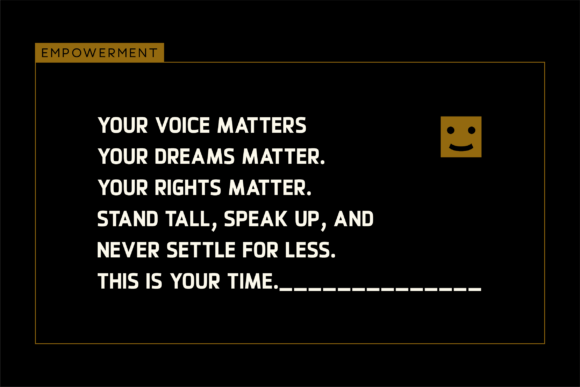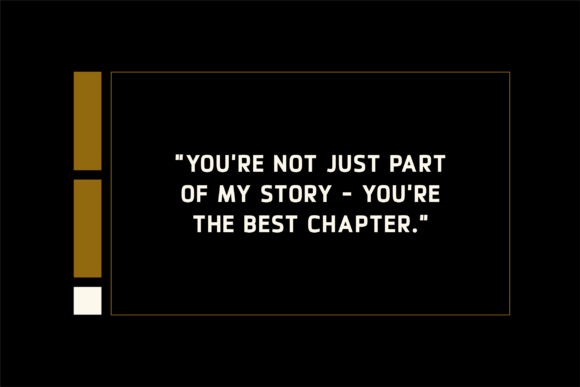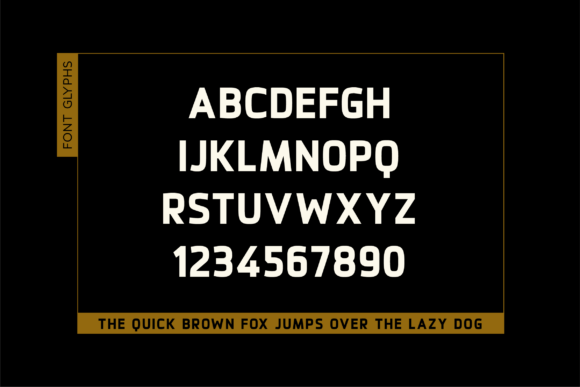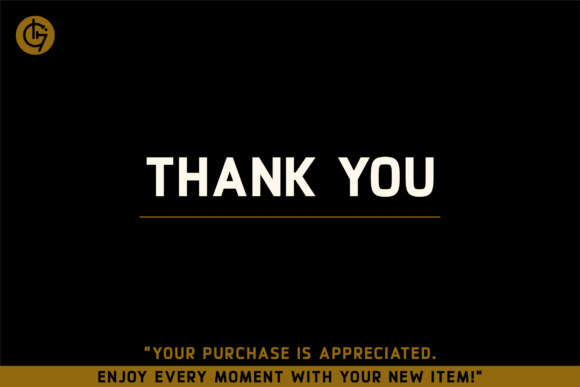
Introduction to Highstrome Font
As a designer, have you ever struggled to find the perfect font for a creative project that screams professionalism and impact? The search for that one font that elevates your design from ordinary to extraordinary can be a daunting task. But what if we told you that your search is over? Say hello to Highstrome Font, a modern sans serif typeface designed to make your designs stand out.
With its clean lines and minimalist aesthetic, Highstrome Font exudes strength and authority, perfect for projects that require a sense of professionalism and transparency. Whether you’re working on a logo, website, or print material, Highstrome Font makes a statement with its sharp, crisp edges, and is available for free download as a design resource.
Key Features of Highstrome Font
- High-resolution design, ideal for creative projects that require a high level of detail and clarity.
- Features a transparent background, allowing for easy customization and integration into different design elements.
- High-quality font, designed to provide a professional and sophisticated look for any creative project.
Honest Review: Highstrome Font
I recently came across the Highstrome Font while searching for a high-quality design resource for a creative project. I was immediately drawn to its unique and elegant style, making it perfect for modern designs.
One of the standout features of the Highstrome Font is its transparent background, allowing for seamless integration into any design. I also appreciated the fact that it’s available for free download, making it an excellent resource for designers on a budget.
- ✨ Unique and elegant style, perfect for modern designs
- ✨ Transparent background for seamless integration
- ⚠️ Limited font sizes and weights, may not be suitable for complex designs
- ⚠️ Not as versatile as other fonts, may not work well for all design styles
Overall, I was impressed with the Highstrome Font’s quality and style. While it has some limitations, it’s a great addition to any designer’s toolkit, especially for modern and elegant designs. I would definitely recommend it for creative projects that require a unique and high-quality font.
Tips for Getting the Most Out of Highstrome Font
Highstrome Font is a versatile design resource that can be used in a variety of creative projects. To get the most out of it, experiment with different font sizes and styles, and combine it with other design elements to create a high-quality design. You can also use it in combination with other free downloads to create a unique and visually appealing design.
Highstrome Font is commonly used in a variety of design projects, including logos, business cards, and marketing materials. It is also a popular choice for creating high-quality designs for websites and social media platforms. With its transparent background and high-quality design, Highstrome Font is a valuable design resource for any creative project.